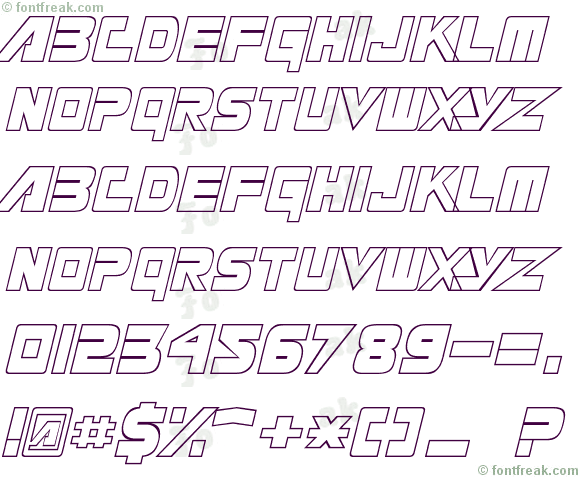
Masterforce
About Masterforce
The Masterforce font, designed by Neale Davidson in 1997, is a striking and versatile typeface that falls under the display category. This font is characterized by its bold, geometric forms and distinct personality, making it an excellent choice for various creative projects. With a medium stroke weight and moderate contrast, the Masterforce font balances readability with an eye-catching design. The clean lines and well-defined characters ensure that it stands out, while the generous spacing between letters adds to its overall legibility.
Masterforce is perfect for a variety of use cases, including striking movie posters, where its unique style can draw attention and evoke emotion. It also works well for restaurant menus, providing a modern yet inviting look that enhances the dining experience. Graphic designers will find it ideal for branding projects, as its strong presence can convey authority and creativity. Additionally, the font can be utilized in promotional materials for events, making it suitable for flyers and banners that require a bold statement. Small business owners looking to establish a memorable identity will appreciate its distinctive flair for logos and signage.
The target audience for Masterforce includes graphic designers, small business owners, and content creators who seek a font that captures attention while remaining versatile. The Masterforce font free download allows users to experiment with this unique typeface without financial commitment, making it accessible for a wide range of projects.
What sets Masterforce apart is its ability to blend boldness with elegance, making it a standout choice for those looking to make an impact. Its unique design elements and versatility ensure that it can adapt to various contexts, appealing to creatives who value both aesthetics and functionality in their typography.